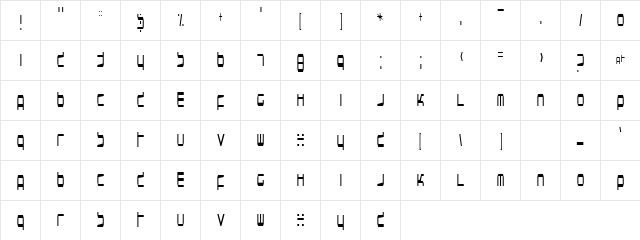
Boxtown Regular
Design Context for Boxtown Typeface
Boxtown offers clean, dependable letterforms without strong stylistic allegiance, making it a practical choice for designers who need flexibility.